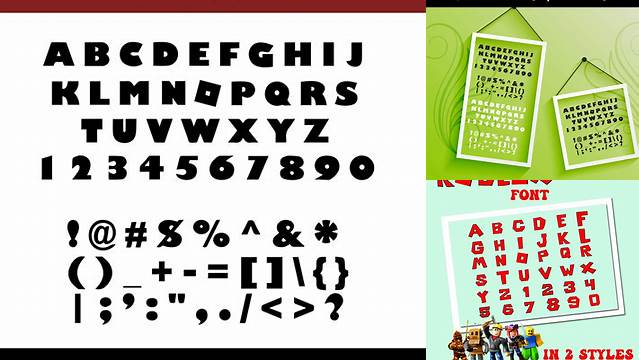
Cool Roblox Fonts: Complete List For Your Games
Hey guys! Ever wondered how to make your Roblox game stand out? One of the easiest ways is by using awesome fonts! A great font can transform your game's UI, making it more engaging and professional. So, let's dive into the ultimate Roblox fonts list to help you level up your game development.
1. Roblox Default Font: The Classic Choice
The Roblox default font is a solid starting point. It's clean, legible, and universally recognized within the Roblox platform. This font ensures that all players can easily read any text displayed in your game, which is crucial for tutorials, instructions, and dialogues. While it might not be the most exciting option, its reliability and clarity make it a staple for many developers.
Using the default font also guarantees compatibility across all devices and platforms that support Roblox, preventing any display issues that might arise with custom fonts. Moreover, it's a safe choice when you're aiming for a minimalist or straightforward aesthetic. It's especially useful during the initial stages of development when you need a placeholder font before deciding on a more stylistic choice. Remember, clarity and readability should always be prioritized, and the default font excels in both aspects.
Consider enhancing the default font with subtle styling, such as bolding or color variations, to make key information stand out without sacrificing readability. This can be a practical approach to draw attention to important elements without overcomplicating the visual design. Ultimately, the default font is a practical choice that ensures accessibility and ease of use for all players, making it an invaluable asset in any Roblox game developer's toolkit. So, while exploring other options, never underestimate the power and simplicity of the Roblox default font!
2. Using Arial in Roblox: A Safe Bet
When you are exploring font options for your Roblox fonts list, Arial is another safe bet. Arial is a widely recognized sans-serif font known for its clean and simple design. It's incredibly legible, making it a great choice for ensuring players can easily read text in your game. Arial is a system font, meaning it's pre-installed on most devices, which ensures broad compatibility across different platforms. This reduces the risk of text rendering issues or the need to include additional font files in your game. Using Arial can provide a consistent and reliable text display for all players, regardless of their device.
Arial is particularly useful for UI elements like buttons, labels, and in-game instructions where clarity is essential. Its neutral appearance doesn't distract from the game's visuals, allowing it to blend seamlessly into various design styles. While it might not be the most unique or visually striking font, its practicality and readability make it a go-to option for many developers. Consider using Arial for body text or informational panels where ease of reading is a priority. You can always complement it with a more decorative font for headings or titles to add visual interest without sacrificing readability.
Furthermore, Arial is a solid choice when you're aiming for a professional or minimalist look. Its straightforward design communicates efficiency and clarity, which can be beneficial for games that prioritize functionality over elaborate aesthetics. Remember, a well-chosen font can significantly impact the user experience, and Arial's reliability ensures that players can focus on enjoying the game without struggling to read the text. So, including Arial in your Roblox fonts list can be a smart move for ensuring a smooth and accessible gaming experience.
3. Gotham Font in Roblox: Modern and Sleek
Adding Gotham to your Roblox fonts list brings a modern and sleek vibe to your game. Gotham is a geometric sans-serif font known for its clean lines and contemporary appearance. It's often used in branding and design to convey a sense of sophistication and clarity. Using Gotham in your Roblox game can give your UI and text elements a polished and professional look. This font is particularly effective for creating a modern or futuristic aesthetic, making it suitable for sci-fi, urban, or tech-themed games.
Gotham's readability is excellent, ensuring that players can easily understand the text on different screen sizes and resolutions. Its balanced letterforms and consistent weight make it a versatile choice for various applications, from headings and titles to body text and captions. Implementing Gotham can enhance the overall user experience by providing a visually appealing and easily digestible text display. Consider using Gotham for your game's main menu, loading screens, and dialogue boxes to create a cohesive and engaging visual experience.
To make the most of Gotham, experiment with different font weights and sizes to achieve the desired effect. Bold variations can be used for emphasis, while lighter weights can create a more subtle and refined look. Pairing Gotham with complementary fonts for different text elements can further enhance the visual hierarchy and overall design. Remember to test the font on various devices to ensure it renders correctly and maintains its readability. By incorporating Gotham into your Roblox game, you can elevate the visual presentation and create a more immersive and professional gaming experience. So, be sure to consider Gotham when compiling your list of Roblox fonts for a modern touch!
4. Roboto Font: Versatile and Readable
Another great addition to your Roblox fonts list is Roboto. Roboto is a widely used sans-serif font known for its versatility and readability. Designed by Google, it's often used in Android and other Google products, making it a familiar and trustworthy font choice. Incorporating Roboto into your Roblox game can provide a clean, modern, and accessible look for your UI and text elements. Its neutral design ensures it fits well with various game themes and styles, making it a versatile option for developers.
29. Future Trends in Game Fonts
Stay updated on future font trends, a forward-looking approach to your Roblox fonts list. Explore variable fonts and new design styles.
30. Final Thoughts on Roblox Fonts
Selecting the right fonts can significantly impact your game's success, and this should be applied on your Roblox fonts list. Consider readability, style, and performance.